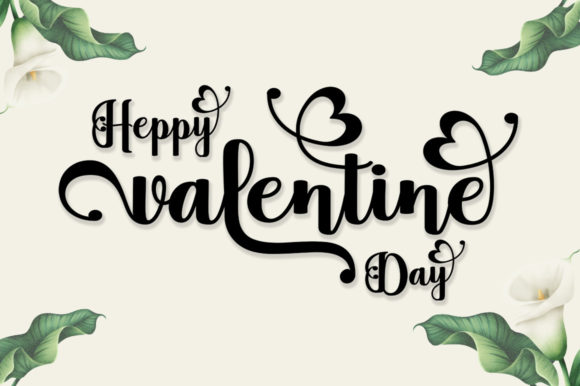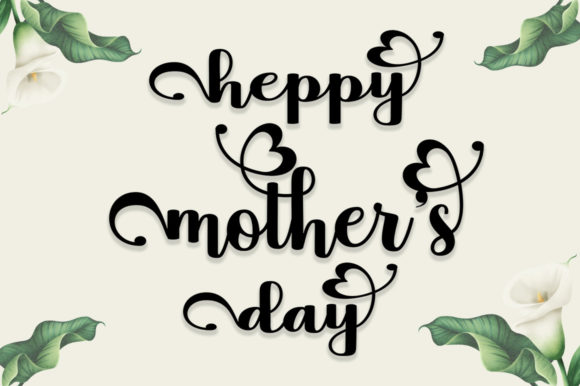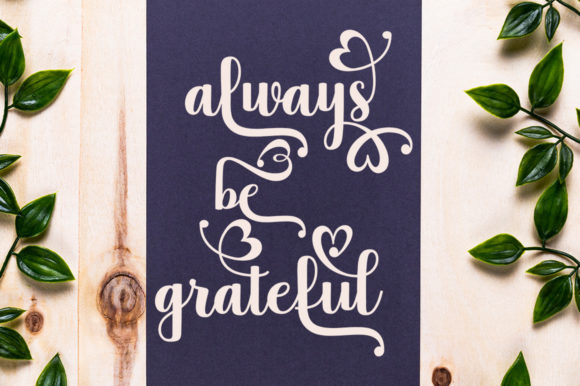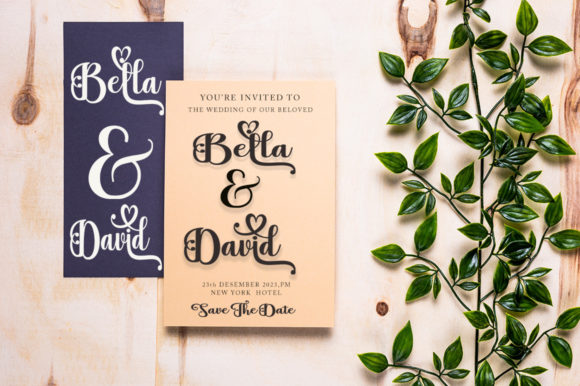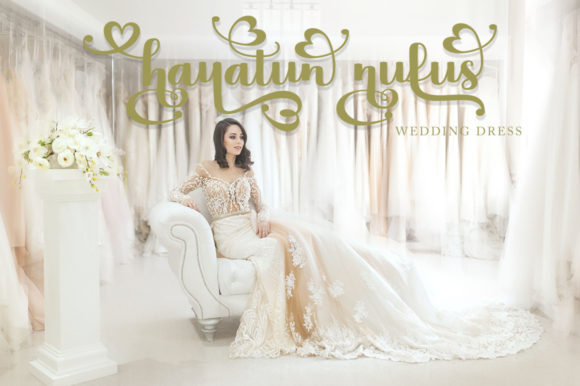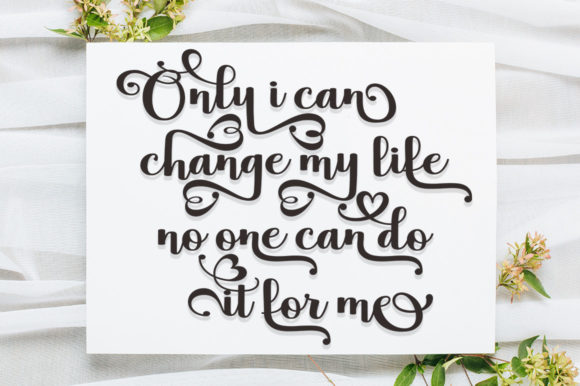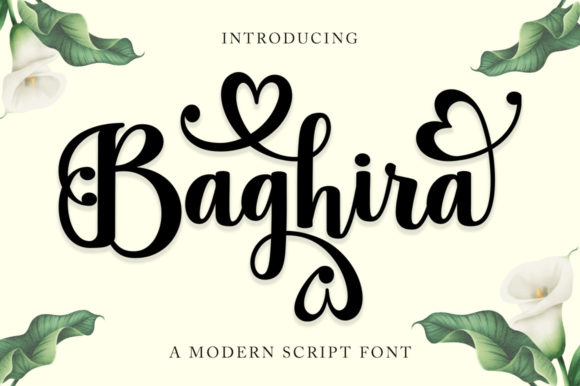
Introducing Baghira Font: Elevate Your Designs with Elegant Script
In the world of typography, a font can make or break a design. For designers and crafters seeking to add a touch of sophistication and elegance to their projects, the Baghira Font is an exceptional choice. This beautiful script font boasts a contemporary atmosphere, impeccable form, and a balanced, varied aesthetic that is sure to enhance the beauty of your creations.
Inspired by Timeless Classic Calligraphy
Baghira Font draws inspiration from the timeless classics of calligraphy, bringing a sense of tradition and refinement to your designs. The font’s elegant lines and curves evoke the feeling of handwritten calligraphy, perfect for projects that require a personal touch. Whether you’re working on a wedding invitation, a branding campaign, or a packaging design, Baghira Font is sure to add a level of sophistication and luxury.
Balanced and Varied: The Perfect Blend of Style and Readability
One of the standout features of Baghira Font is its perfect balance of style and readability. Not too thin and not too thick, the font’s strokes are carefully crafted to provide a harmonious visual experience. The balanced design ensures that your text remains clear and easy to read, even at smaller sizes, making it ideal for a wide range of applications.
PUA Encoded for Easy Access to Glyphs and Swashes
Baghira Font is PUA (Private Use Area) encoded, which means that you can access all of the glyphs and swashes with ease. This feature allows you to unlock the full creative potential of the font, adding intricate details and flourishes to your designs. With PUA encoding, you can effortlessly create stunning text arrangements that showcase your creativity and attention to detail.
Enhance Your Projects with Baghira Font
- Wedding Invitations and Stationery: Add a touch of romance and elegance to your wedding designs with Baghira Font’s beautiful script.
- Branding and Packaging: Use Baghira Font to create luxurious brand identities and packaging designs that stand out from the crowd.
- Signage and Displays: Make a statement with eye-catching signage and displays featuring Baghira Font’s elegant lettering.
- Digital Media: Incorporate Baghira Font into your digital designs, such as social media graphics, blog headers, and email newsletters.
Why Choose Baghira Font?
- Unique and Elegant Design: Baghira Font offers a distinctive and sophisticated aesthetic that sets it apart from other fonts.
- High Readability: The font’s balanced design ensures that your text remains clear and easy to read.
- PUA Encoding: Access all glyphs and swashes with ease, giving you maximum creative control.
- Versatility: Use Baghira Font across a range of applications, from print to digital media.
Baghira Font is an exceptional choice for designers and crafters seeking to add a touch of elegance and sophistication to their projects. With its timeless classic calligraphy inspiration, balanced and varied design, and PUA encoding, this font is sure to elevate your designs and make them stand out. Whether you’re working on a wedding invitation, branding campaign, or digital media project, Baghira Font is the perfect choice for those who value beauty, readability, and creative control.